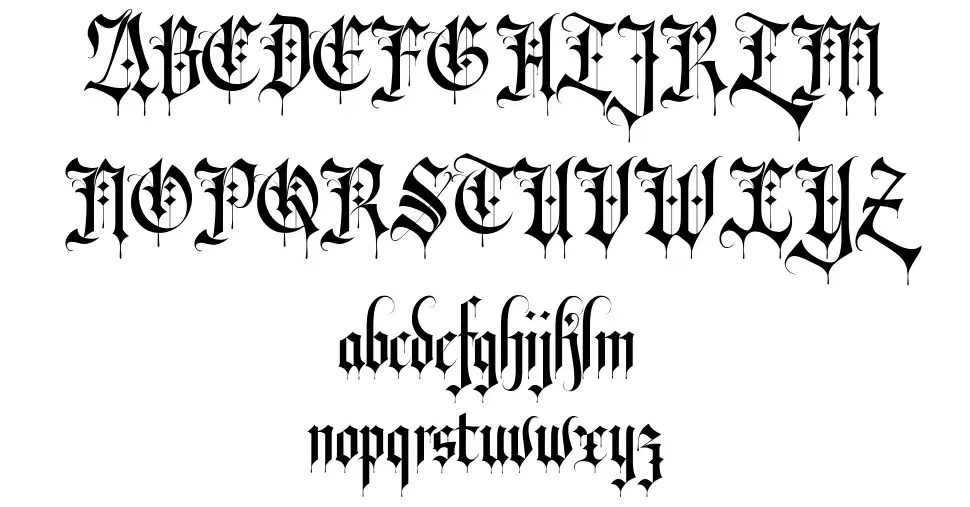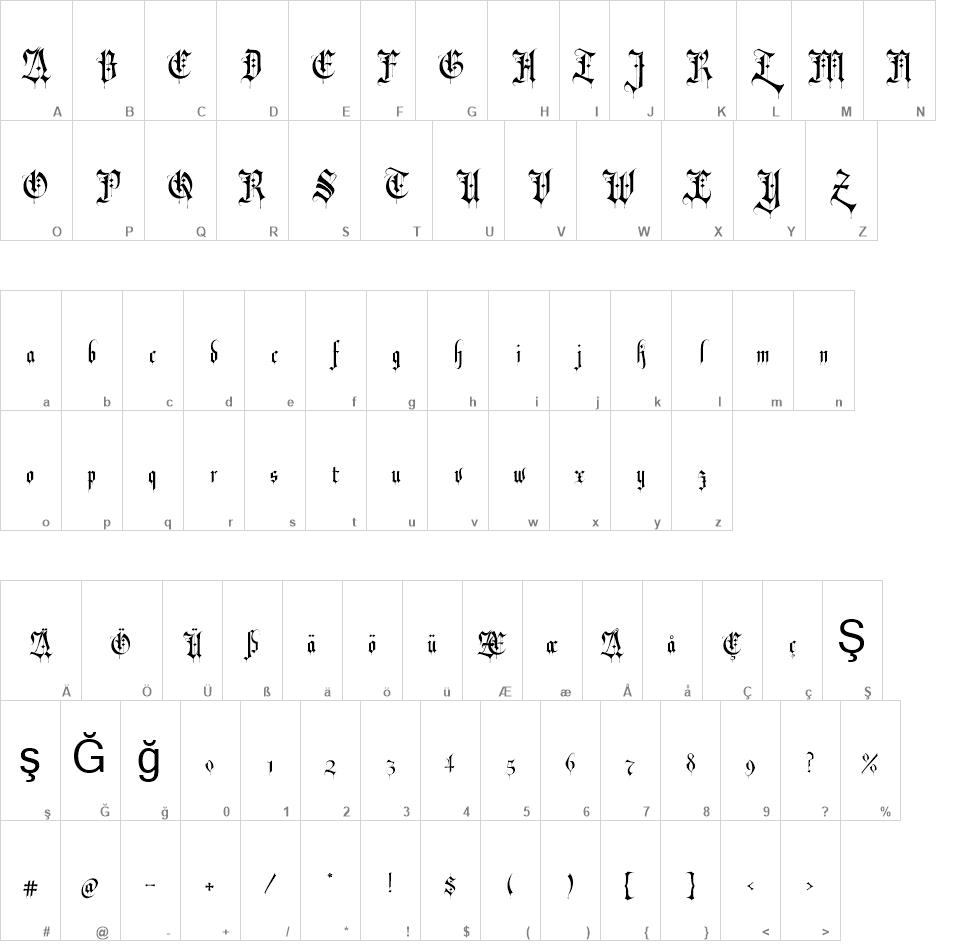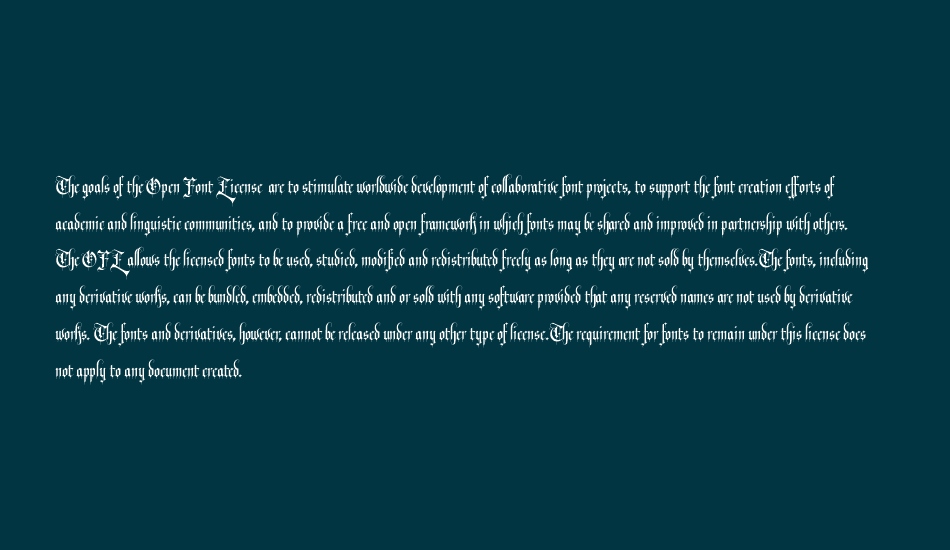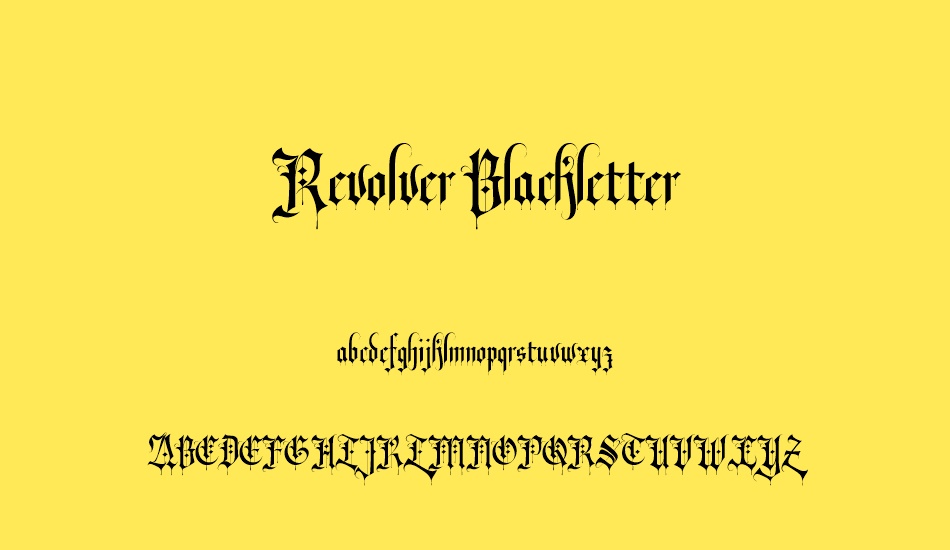
20+ Revolver Blackletter Font Creativefabrica. Download it free at fontriver.com! Free fonts, fonts, download free fonts, font lot. Download blackletter font family · free for commercial use · includes blackletter extrabold, shadow · copyright (c) typographer mediengestaltung, 2001. Revolver font a blackletter font that i've made with a personality touch. Revolver blackletter is a combination of ink, black print, paper and revolver, whose bullet, bleeds the paper in beautiful texts. Revolver blackletter font by eduardo aire torres 712 downloads. Mar 30, 2019 fonts 123 0. Test drive, character map, etc. Home blackletter revolver blackletter typeface. Download revolver blackletter typeface or any other file from graphics category. Revolver blackletter font contains 247 glyphs, including multilingual support. The combination of ink, black print, paper and revolver, whose bullet, bleeds the paper in beautiful texts. Looking for revolver blackletter font? Tweets about free downloadable fonts and font industry news. They works perfect for you fireflight | blackletter modern font with a calligraphy black letter style, so beautiful on invitation.
Revolver Blackletter Font Free For Personal Commercial Modification Allowed Redistribution Allowed. Mar 30, 2019 fonts 123 0. Tweets about free downloadable fonts and font industry news. Revolver blackletter font by eduardo aire torres 712 downloads. The combination of ink, black print, paper and revolver, whose bullet, bleeds the paper in beautiful texts. Download it free at fontriver.com! Download blackletter font family · free for commercial use · includes blackletter extrabold, shadow · copyright (c) typographer mediengestaltung, 2001. Download revolver blackletter typeface or any other file from graphics category. Looking for revolver blackletter font? Free fonts, fonts, download free fonts, font lot. Test drive, character map, etc. They works perfect for you fireflight | blackletter modern font with a calligraphy black letter style, so beautiful on invitation. Revolver blackletter is a combination of ink, black print, paper and revolver, whose bullet, bleeds the paper in beautiful texts. Revolver font a blackletter font that i've made with a personality touch. Revolver blackletter font contains 247 glyphs, including multilingual support. Home blackletter revolver blackletter typeface.
It is a western calligraphy style that was used in europe from 1100s to the 1600s. The combination of ink, black print, paper and revolver, whose bullet, bleeds the paper in beautiful texts. Browse hundreds of blackletter fonts on youworkforthem! Alphabet, type, blackletter, vintage, gothic, typography, lettering, typeface, font, calligraphy, old, handwritten new blackletter typeface font. Rademos blackletter font is a handmade modern read more. Revolver blackletter is a combination of ink, black print, paper and revolver, whose bullet, bleeds the paper in beautiful texts. Tweets about free downloadable fonts and font industry news. Aginoe modern sans font family, black gothic font, blackletter, fraktur, gothic font, label shapes, medieval, medieval font, tattoo illustration. Hello my young and prolific designers, i hope you all are doing great and enjoying the best of your health. Revolver blackletter font by eduardo aire torres 712 downloads. Download it free at fontriver.com! Revolver font a blackletter font that i've made with a personality touch. By photos and some fonts. Free fonts, fonts, download free fonts, font lot. We have a huge range of other products available. Licence included with all fonts ✓. Life is unpredictable you know, if one day you have a pleasant mood. 2 styles uncategorized 4 downloads. Click here and download 432+ different blackletter fonts. They works perfect for you fireflight | blackletter modern font with a calligraphy black letter style, so beautiful on invitation. The best selection of blackletter fonts for windows and macintosh. Download revolver blackletter typeface or any other file from graphics category. La combinación de la tinta, la letra negra, el papel y el revólver, que con su bala, desangra al papel en bellos textos. Download blackletter font family · free for commercial use · includes blackletter extrabold, shadow · copyright (c) typographer mediengestaltung, 2001. Download 10,000 fonts with one click for $19.95. Textura digita, a blackletter asl fingerspelling font. This font is very suitable for product brand, logos, automotive brand, web title, magazine header, book title and. Mar 30, 2019 fonts 123 0. Home blackletter revolver blackletter typeface. Test drive, character map, etc. Revolver blackletter font contains 247 glyphs, including multilingual support.
Revolver Blackletter Free Font. They works perfect for you fireflight | blackletter modern font with a calligraphy black letter style, so beautiful on invitation. Free fonts, fonts, download free fonts, font lot. Home blackletter revolver blackletter typeface. The combination of ink, black print, paper and revolver, whose bullet, bleeds the paper in beautiful texts. Revolver font a blackletter font that i've made with a personality touch. Tweets about free downloadable fonts and font industry news. Download blackletter font family · free for commercial use · includes blackletter extrabold, shadow · copyright (c) typographer mediengestaltung, 2001. Revolver blackletter font contains 247 glyphs, including multilingual support. Download it free at fontriver.com! Test drive, character map, etc. Revolver blackletter is a combination of ink, black print, paper and revolver, whose bullet, bleeds the paper in beautiful texts. Download revolver blackletter typeface or any other file from graphics category. Looking for revolver blackletter font? Mar 30, 2019 fonts 123 0. Revolver blackletter font by eduardo aire torres 712 downloads.
Revolver Blackletter Font Download Free Pc Mac And Web Font. Home blackletter revolver blackletter typeface. Revolver blackletter font by eduardo aire torres 712 downloads. They works perfect for you fireflight | blackletter modern font with a calligraphy black letter style, so beautiful on invitation. Download revolver blackletter typeface or any other file from graphics category. Free fonts, fonts, download free fonts, font lot. Revolver blackletter is a combination of ink, black print, paper and revolver, whose bullet, bleeds the paper in beautiful texts. Revolver font a blackletter font that i've made with a personality touch. Tweets about free downloadable fonts and font industry news. Looking for revolver blackletter font? The combination of ink, black print, paper and revolver, whose bullet, bleeds the paper in beautiful texts. Download blackletter font family · free for commercial use · includes blackletter extrabold, shadow · copyright (c) typographer mediengestaltung, 2001. Download it free at fontriver.com! Revolver blackletter font contains 247 glyphs, including multilingual support. Mar 30, 2019 fonts 123 0. Test drive, character map, etc.
Revolver Blackletter Font Free For Personal Commercial Modification Allowed Redistribution Allowed. The combination of ink, black print, paper and revolver, whose bullet, bleeds the paper in beautiful texts. Revolver blackletter is a combination of ink, black print, paper and revolver, whose bullet, bleeds the paper in beautiful texts. Mar 30, 2019 fonts 123 0. Download revolver blackletter typeface or any other file from graphics category. Revolver blackletter font by eduardo aire torres 712 downloads. They works perfect for you fireflight | blackletter modern font with a calligraphy black letter style, so beautiful on invitation. Looking for revolver blackletter font? Download it free at fontriver.com! Tweets about free downloadable fonts and font industry news. Free fonts, fonts, download free fonts, font lot. Revolver font a blackletter font that i've made with a personality touch. Test drive, character map, etc. Download blackletter font family · free for commercial use · includes blackletter extrabold, shadow · copyright (c) typographer mediengestaltung, 2001. Home blackletter revolver blackletter typeface. Revolver blackletter font contains 247 glyphs, including multilingual support.
Revolver Font Dafont Free. Download blackletter font family · free for commercial use · includes blackletter extrabold, shadow · copyright (c) typographer mediengestaltung, 2001. Home blackletter revolver blackletter typeface. Tweets about free downloadable fonts and font industry news. Looking for revolver blackletter font? Test drive, character map, etc. Download revolver blackletter typeface or any other file from graphics category. Revolver font a blackletter font that i've made with a personality touch. Download it free at fontriver.com! Revolver blackletter font by eduardo aire torres 712 downloads. They works perfect for you fireflight | blackletter modern font with a calligraphy black letter style, so beautiful on invitation. The combination of ink, black print, paper and revolver, whose bullet, bleeds the paper in beautiful texts. Mar 30, 2019 fonts 123 0. Revolver blackletter font contains 247 glyphs, including multilingual support. Free fonts, fonts, download free fonts, font lot. Revolver blackletter is a combination of ink, black print, paper and revolver, whose bullet, bleeds the paper in beautiful texts.
Revolver Blackletter Font Download Free Pc Mac And Web Font. They works perfect for you fireflight | blackletter modern font with a calligraphy black letter style, so beautiful on invitation. Mar 30, 2019 fonts 123 0. Home blackletter revolver blackletter typeface. The combination of ink, black print, paper and revolver, whose bullet, bleeds the paper in beautiful texts. Download revolver blackletter typeface or any other file from graphics category. Download blackletter font family · free for commercial use · includes blackletter extrabold, shadow · copyright (c) typographer mediengestaltung, 2001. Test drive, character map, etc. Revolver blackletter is a combination of ink, black print, paper and revolver, whose bullet, bleeds the paper in beautiful texts. Revolver font a blackletter font that i've made with a personality touch. Looking for revolver blackletter font? Tweets about free downloadable fonts and font industry news. Download it free at fontriver.com! Free fonts, fonts, download free fonts, font lot. Revolver blackletter font contains 247 glyphs, including multilingual support. Revolver blackletter font by eduardo aire torres 712 downloads.
Blackletter fonts have letters that are very bold and ornate.
Click here and download 432+ different blackletter fonts. Download blackletter font family · free for commercial use · includes blackletter extrabold, shadow · copyright (c) typographer mediengestaltung, 2001. We have a huge range of other products available. Looking for revolver blackletter font? They works perfect for you fireflight | blackletter modern font with a calligraphy black letter style, so beautiful on invitation. By photos and some fonts. Hello my young and prolific designers, i hope you all are doing great and enjoying the best of your health. Windows, mac, linux ✓ browse by popularity or by upload date. La combinación de la tinta, la letra negra, el papel y el revólver, que con su bala, desangra al papel en bellos textos. Rademos blackletter font is a handmade modern read more.